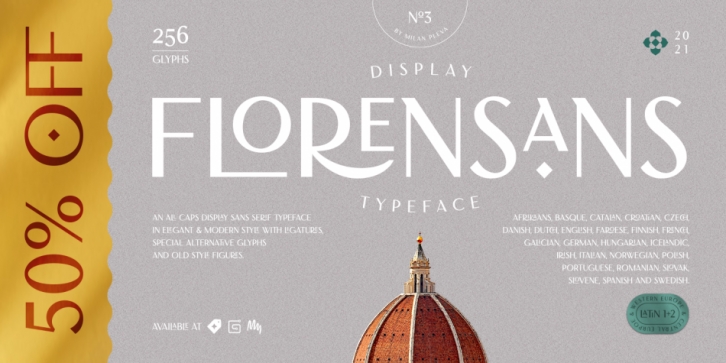
Florensans is a display sans font published by Milan Pleva.
Florensans is an all caps display sans serif typeface in elegant & modern style with ligatures, special alternative glyphs and old style figures. Florensans is ideal for headlines, headers, logos, labels, packaging, postcards, presentations, magazines, invitations, etc.